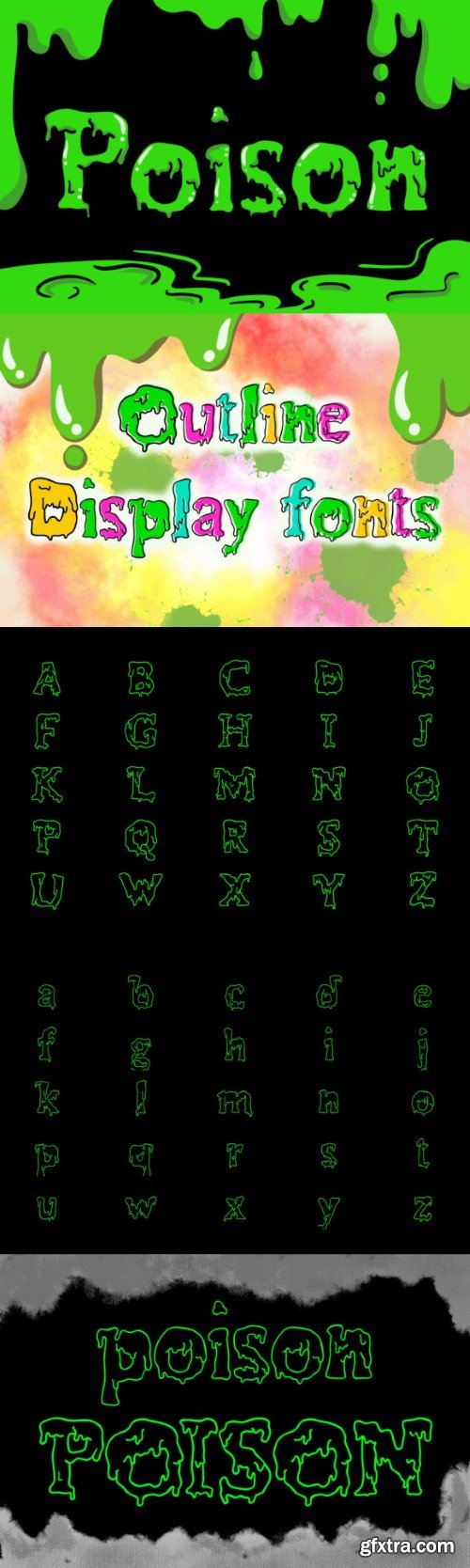
毒字字体
Captivating ‘Poison’ Outline Font: Elevate your Halloween designs from ordinary to extraordinary with our ‘Poison’ display font. Its delicate outlines and spooky theme infuse your projects with an otherworldly charm.